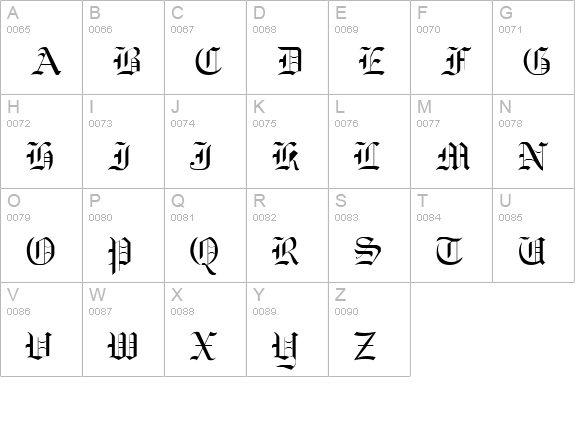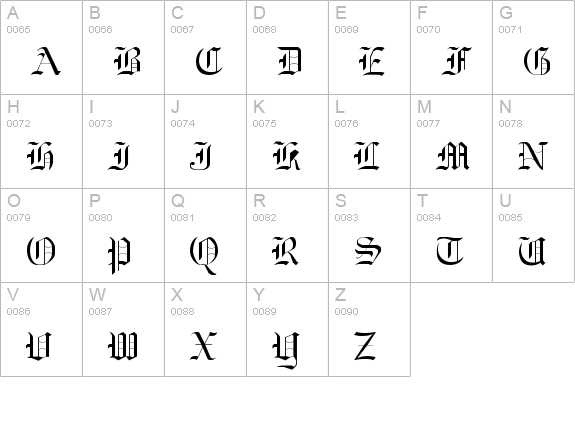
OldEnglish Normal is the standard, neutral variant in the OldEnglish typeface family \xE2\x80\x94 well suited to general body text, paragraphs, and standard typographic work.
OldEnglish Normal font is a classic and elegant typeface that embodies the charm and sophistication of old English calligraphy. Its intricate details and ornate flourishes give your text a regal and timeless appearance. Perfect for adding a touch of old-world charm to invitations, posters, or branding projects. Best of all, OldEnglish Normal font is completely free to download at FontsMarket.com. Embrace the beauty of the past with this exquisite typeface, available at your fingertips with just a few clicks. Elevate your designs with the sophistication of OldEnglish Normal font and make a statement that stands the test of time.